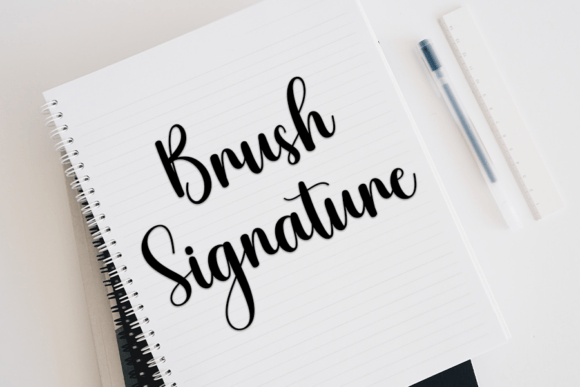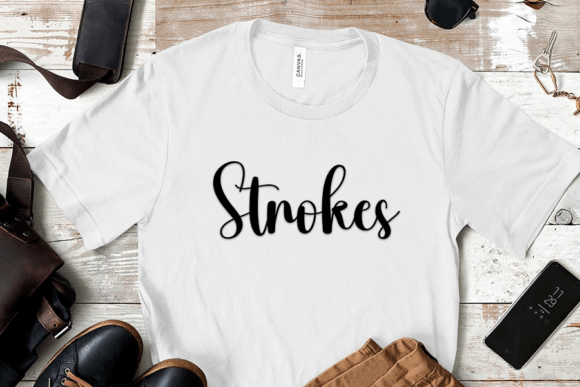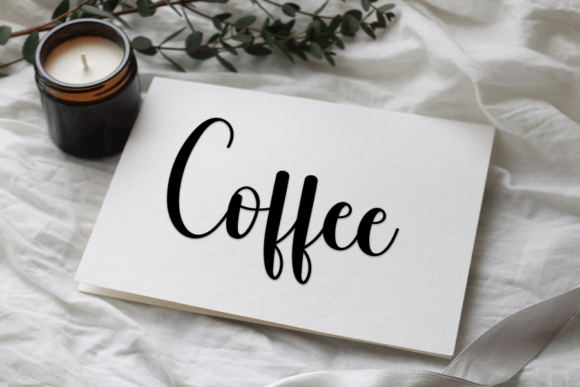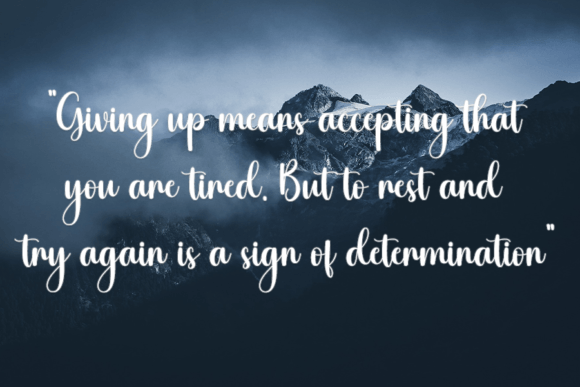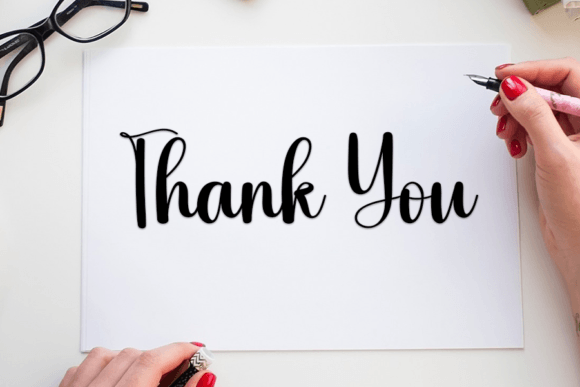
Introducing Brush Strokes Font: The Ultimate Handwritten Font for Modern Designers and Crafters
Are you tired of using the same old fonts for your designs and crafts? Look no further than Brush Strokes Font, a cool and modern handwritten font that’s perfect for a variety of projects. Whether you’re a digital designer, crafter, or simply someone who loves to create greeting cards, Brush Strokes Font has the potential to be your go-to font for any occasion.
What is Brush Strokes Font?
Brush Strokes Font is a unique and stylish handwritten font that’s designed to add a personal touch to your designs. With its smooth, flowing strokes and modern aesthetic, this font is perfect for creating a wide range of projects, from digital designs and presentations to crafts and greeting cards.
Key Features of Brush Strokes Font
So what makes Brush Strokes Font so special? Here are just a few of its key features:
- Handwritten style: Brush Strokes Font has a beautiful, handwritten style that’s perfect for adding a personal touch to your designs.
- Modern aesthetic: With its clean lines and modern aesthetic, this font is perfect for creating designs that are both stylish and sophisticated.
- Versatile: Brush Strokes Font can be used for a wide range of projects, from digital designs and presentations to crafts and greeting cards.
- Easy to read: Despite its handwritten style, Brush Strokes Font is easy to read, making it perfect for creating designs that need to be both visually appealing and legible.
Uses for Brush Strokes Font
So what can you use Brush Strokes Font for? The possibilities are endless! Here are just a few ideas to get you started:
- Digital designs: Use Brush Strokes Font to create stunning digital designs, from social media graphics and blog posts to email newsletters and website headers.
- Crafts: Add a personal touch to your crafts with Brush Strokes Font. Use it to create beautiful handmade cards, gift tags, and other paper crafts.
- Presentations: Use Brush Strokes Font to create engaging and stylish presentations that are sure to impress your audience.
- Greeting cards: Create beautiful, one-of-a-kind greeting cards with Brush Strokes Font. Perfect for birthdays, holidays, and special occasions.
Tips for Using Brush Strokes Font
Here are a few tips for getting the most out of Brush Strokes Font:
- Experiment with different colors: Brush Strokes Font looks great in a variety of colors, so don’t be afraid to experiment and find the perfect color for your design.
- Use it with other fonts: Brush Strokes Font pairs well with a variety of other fonts, so try combining it with other fonts to create a unique and interesting design.
- Play with different sizes: Brush Strokes Font looks great in a variety of sizes, from large and bold to small and delicate.
Brush Strokes Font is a versatile and stylish handwritten font that’s perfect for modern designers and crafters. With its smooth, flowing strokes and modern aesthetic, this font has the potential to be your go-to font for any occasion. Whether you’re creating digital designs, crafts, presentations, or greeting cards, Brush Strokes Font is sure to add a personal touch to your projects. So why not give it a try and see what amazing designs you can create?
In conclusion, Brush Strokes Font is a cool and modern handwritten font that’s perfect for anyone who loves to create. Its unique style, versatility, and ease of use make it a must-have font for any designer or crafter. So don’t wait – download Brush Strokes Font today and start creating amazing designs that are sure to impress!